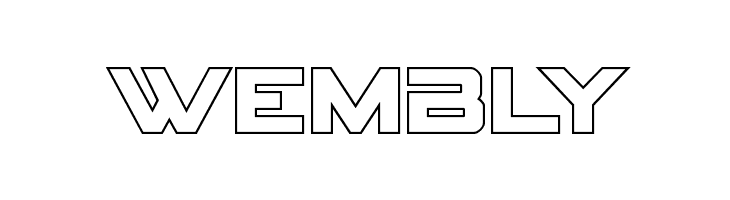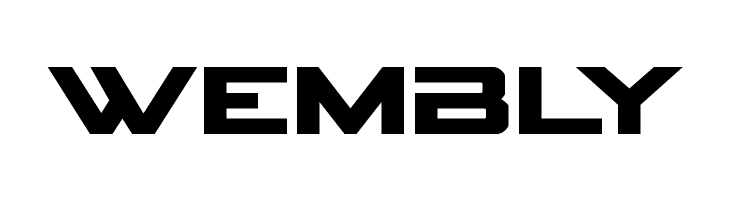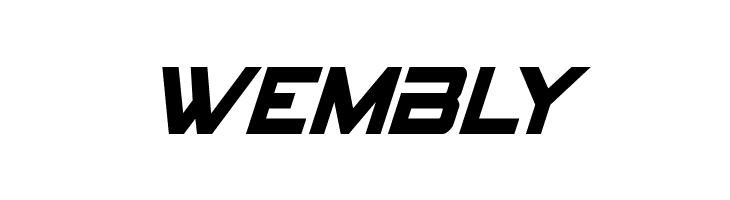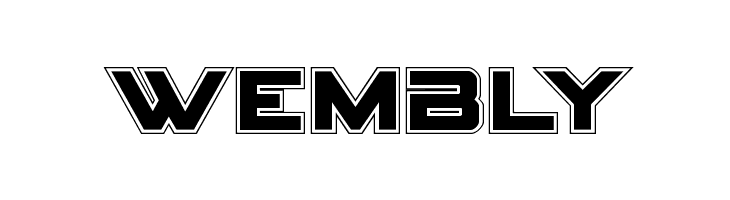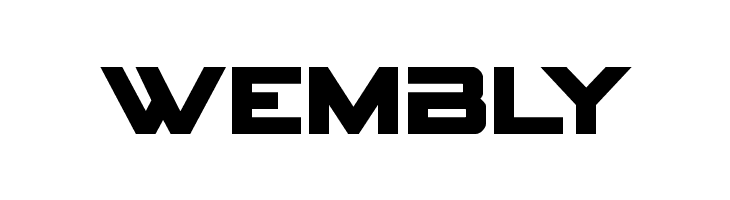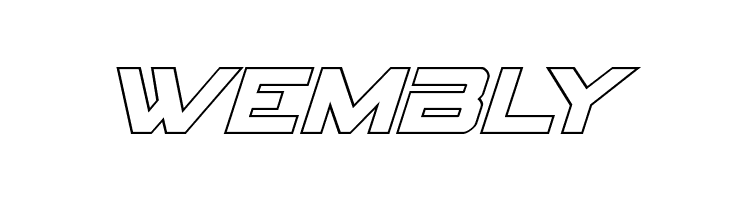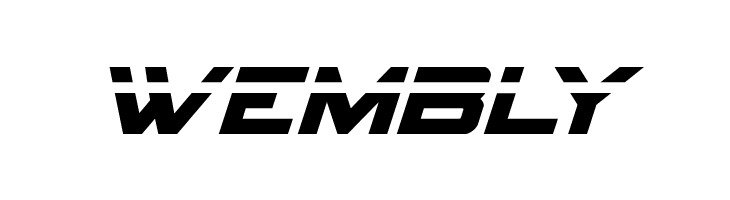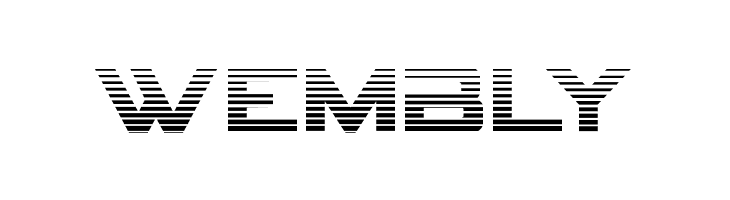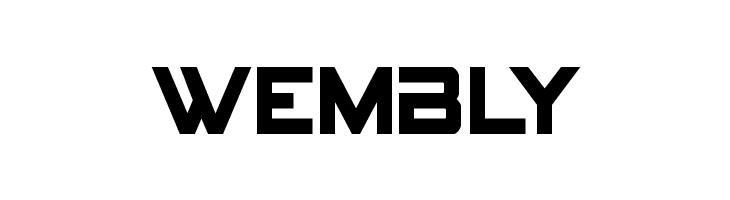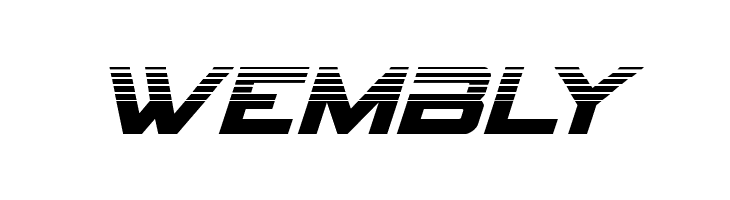
Spy Agency Bold Font
A bold, geometric font with a futuristic and digital aesthetic.
Spy Agency Halftone Italic Font
A bold, italic font with a halftone effect and a futuristic style.
Spy Agency Expanded Font
Spy Agency Condensed Italic Font
A modern, condensed italic font with a sleek and angular design.
Spy Agency Font
A bold, geometric font with a futuristic and tech-inspired design.
Spy Agency Italic Font
A bold, italicized font with a modern, dynamic style.
Spy Agency Outline Italic Font
A bold, italicized outline font with a modern, geometric design.
Spy Agency Expanded Italic Font
A bold, expanded italic font with a modern and dynamic style.
Spy Agency 3D Italic Font
A bold, 3D italic font with a futuristic and dynamic style.
Spy Agency 3D Font
A bold, 3D outlined font with a futuristic and geometric style.
Spy Agency Gradient Italic Font
A futuristic italic font with a gradient line effect, perfect for tech and sci-fi themes.
Spy Agency Gradient Font
A futuristic font with a digital, horizontal line pattern and geometric structure.
Spy Agency Laser Font
A futuristic, angular font with a stencil-like design.
Spy Agency Semi-Italic Font
A modern, semi-italic font with bold, angular characters.
Spy Agency Condensed Font
A bold, geometric font with a modern, futuristic style and condensed width.
Spy Agency Leftalic Font
Font by Iconian Fonts - Daniel Zadorozny - Personal-use only. For commercial use please contact owner.
A bold, futuristic font with a leftward slant and geometric design.
Spy Agency Outline Font
Font by Iconian Fonts - Daniel Zadorozny - Personal-use only. For commercial use please contact owner.
A bold, geometric outline font with a futuristic and tech-inspired design.
Spy Agency Halftone Font
A bold, futuristic font with a halftone effect and geometric structure.
Spy Agency Bold Italic Font